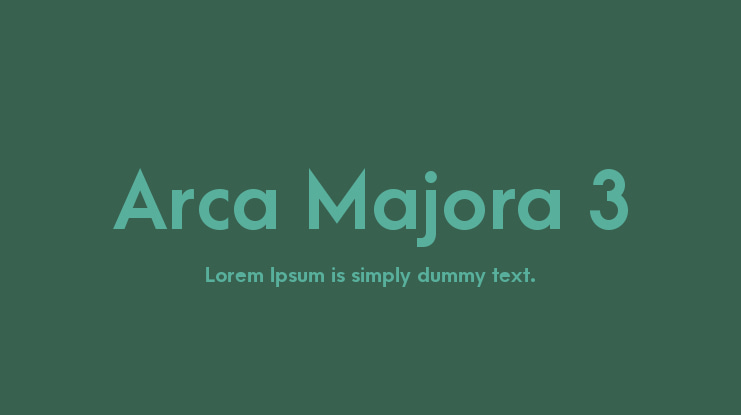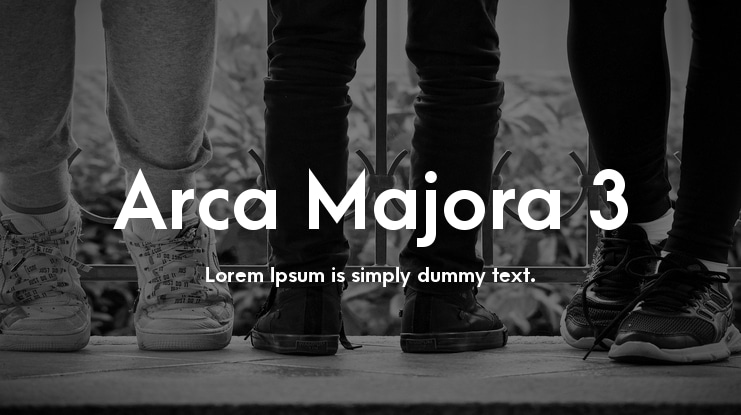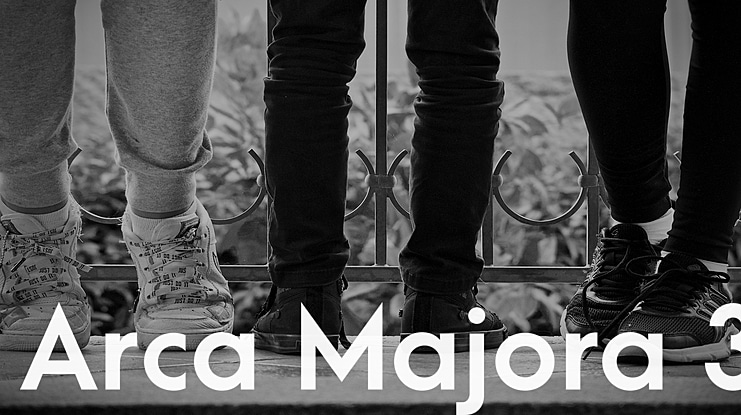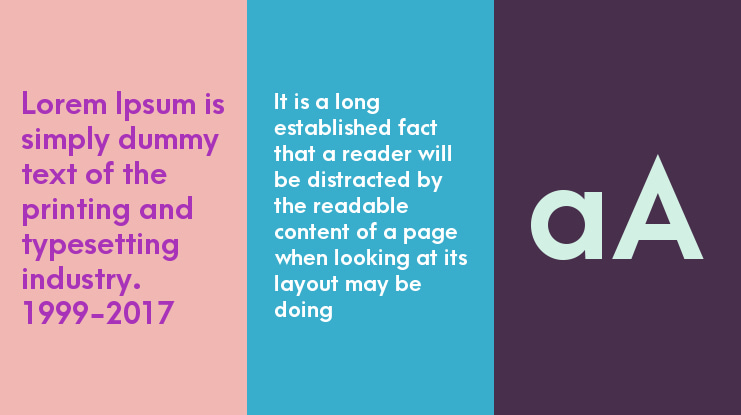
Arca Majora 3 Font Family
ARCA MAJORA 3 FONT Arca Majora III is a new Sans Serif font. Designed and shared by sam rafedia, a professional designer, came from United State. Arca Majora 3 is derived from Arca Majora, an all-uppercase geometric sans-serif that is great for headlines, logotypes, and posters.